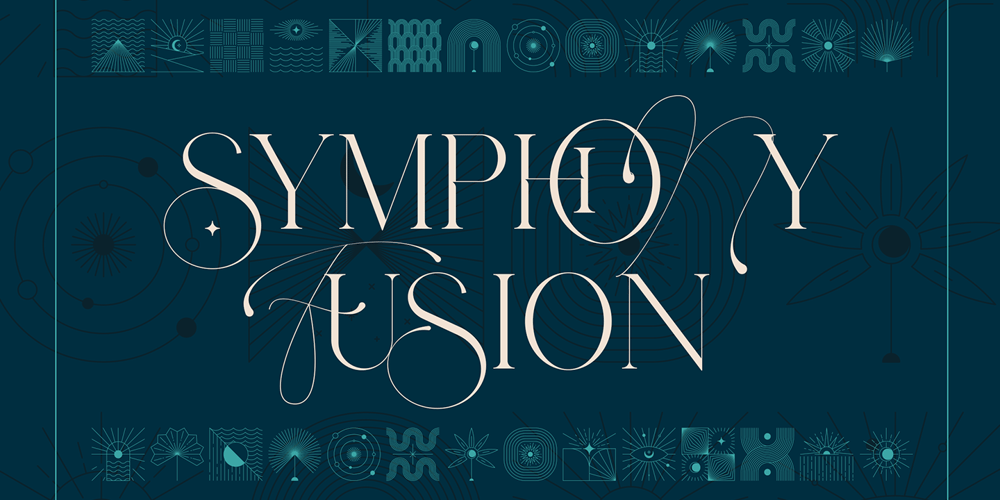
Symphony Fusion Font Family was designed by Vladimir Fedotov, Plamen Petrov and published by VP Creative Shop. Symphony Fusion contains 14 styles and family package options. Symphony Fusion is a delightful and versatile typeface that seamlessly blends classic elegance with modern flair. This serif font boasts a rich collection of ligature glyphs, adding a touch of sophistication to your text. What sets it apart is its unique approach to uppercase letters, where a graceful script design takes center stage, creating a harmonious balance between tradition and contemporary style.Adding to its versatility, Symphony Fusion doesn’t stop at just serifs. It extends its range with complementary sans serif fonts, offering various weights and italic versions. This diversity allows for creative freedom, enabling you to express your message with both poise and a touch of boldness.